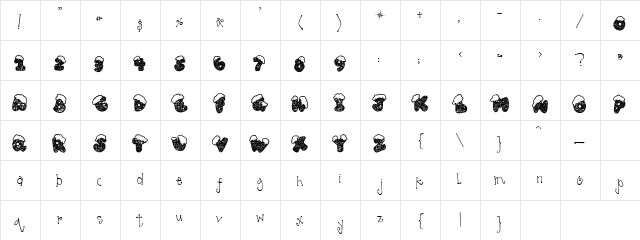
DJ Snow Plop Regular
Design Context for DJ Snow Plop Typeface
DJ Snow Plop is a composed and adaptable typeface that performs quietly and consistently across a wide range of design contexts.